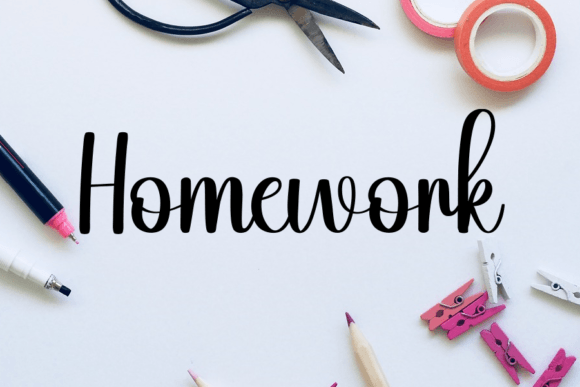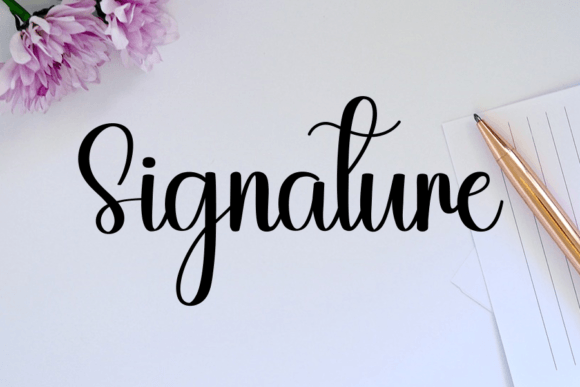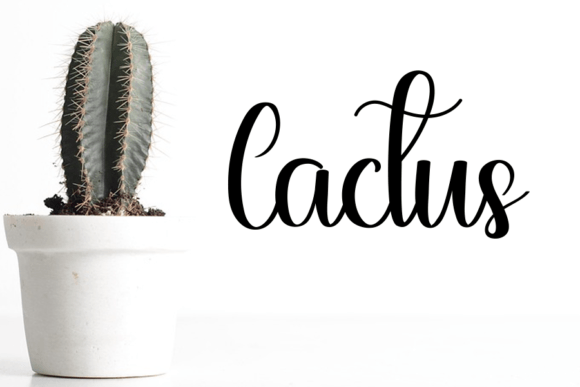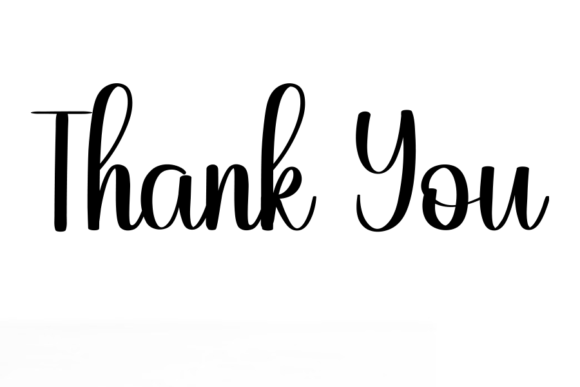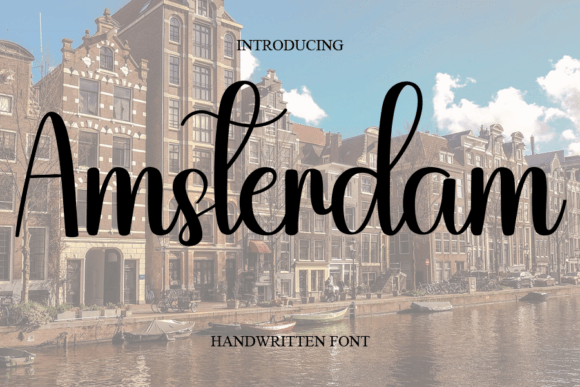
The Amsterdam Font: A Fun and Quirky Handwritten Delight
I still remember the design project that led me to discover the Amsterdam font. I was working on a branding project for a trendy new cafe, and I was struggling to find the perfect font to capture their playful and modern vibe. That’s when I stumbled upon Amsterdam, a fun and quirky handwritten font that instantly won me over. In this article, I’ll share my experience with Amsterdam, and explore its features, uses, and alternatives.
An Honest Review of Amsterdam Font
So, what makes Amsterdam font so special? Here are some things I love about it:
- ✨ Unique and quirky personality: Amsterdam font has a distinctive, hand-drawn feel that’s perfect for adding a touch of whimsy to your designs.
- ✅ Highly legible: Despite its playful nature, Amsterdam font is surprisingly easy to read, making it suitable for body text and headlines.
- 💃 Versatile: Amsterdam font comes in a range of weights and styles, making it suitable for a wide range of design projects.
Of course, no font is perfect, and Amsterdam has a few small quirks:
- 🤔 Limited formal applications: Amsterdam font is best suited for informal, creative projects. It may not be the best choice for more formal or corporate designs.
- ⚠️ Some glyphs may be missing: As with any font, there may be some glyphs or special characters missing, so be sure to check the font’s capabilities before using it.
The Story Behind Amsterdam Font
Amsterdam font was designed by a talented type designer who’s passionate about creating fun and quirky fonts. According to the designer’s inspiration, Amsterdam font was created to capture the playful and modern spirit of the city of Amsterdam. The font’s unique personality and versatility have made it a favorite among designers and crafters.
| What is Amsterdam font? | Amsterdam font is a fun and quirky handwritten font that’s perfect for adding a touch of whimsy to your designs. |